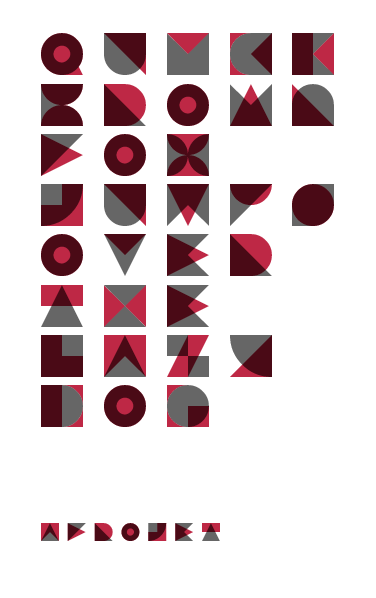
• A play on brickstacking, 'Brutal' is an experiment in creating a one brick fontstruction for multilayered screen printing. To use this font, you simply need to layer the uppercase alphabet on top of (or underneath) the lowercase alphabet (see below for a sample).
Obviously, it doesn't look like much in the Fontstruct preview.
The inspiration for this typeface came about when I was putting together this Flickr gallery of modular multi-colored lettering.
Simply awesome. I hope someday to see some stunning real-world applications made possible by this riddle of an elegant offering.
Too many beautiful glyphs to count. The U and the N and the R. The H and the X. The masterful compositions with just the right touch of brickstacking for certain layers (The Q, the G, the D, the B, the C, the K). A vs. V. L vs. J. M, W, and E! But especially the F. And, again, that magical Q!
I could go on, my friend, singing the praises of this masterpiece. The question becomes: How to properly display this as a featured download?
Amazing! I tried to make something like that, but failed. Actually, the solution was simply beatiful... or beautifully simple.
What especially blows my mind after taking a tour of the flikr gallery you put together: amongst all the similar constructions that inspired you, Brutal embodies the greatest legibility born of arguably the strictest ruleset. And with absolutely no dearth of playful style.
You say 'Brutal' is an experiment ... well, the experiment was a fantastic success.
As someone who was involved in screenprinting (way back in the 60s) I can really appreciate this design (and the others in your gallery) .... hmmmm, I can almost smell the tri-chromatic inks.
Words fail me.
Thanks for the great responses everyone. I definitely want to pull some prints of this one. The digital sample doesn't do it the justice it deserves. The red is a bit too pink. I'd like it to be much more of a tomato soup red. Wondering now if either the M, the E, or the W shouldn't be reversed to make one of them more unique.
A well coordinated mixed-case setting enables palette swapping for any of these layered glyphs, right?
I get your point (if one had to change, I would pick M). But I really dig the conceptual elegance of rotated and repeated forms. It’s the rhythm that helps showcase those showstoppers (Q, O, X, Z – yeah, and especially that F again). But is it punk or is it polka, music or muzak, acid jazz or bad acid? I know what my ears say, but yours must ultimately decide.
Actually, though, I have always been unreasonable fond of the pacman-style Art Deco M. In that case, mirrored chucky trapezoids might do the trick. This just brings up the idea of using the diacritics for alternates (Å+å = YAY!). But, then again, why bloat something already so willfully, brutally paired down to its most fundamental elements?
uuhnn blkrr flbpppft... (stupefaction)
@will.i.ૐ You're totally right. Seems I was lost within the potentials of my own font. No need for alt glyphs; if you want to flip one of the glyphs just swap lowercase for uppercase (or vis a versa). In this example, the dominant red color is swapped to the uppercase. Punk becomes polka (and Jello Biafra records an instrumental accordion record).
And just for shits and giggles and because web fonts are the talk du jour...here's an example of 'Brutal' - layered and presented on the web (requires a modern browser with @font-face support).
Holy crap. Now that’s totally awesome. Loving the new color schemes. Does this make me a polka man? ;)
Okay. I love the design. And that @font-face demo is incredible.
Great work afro...love the @font-face demo.
It' a little hard to read but i can see how you made the letters. Pretty good!
try using this font. looks better without overlapping two letters
wow. "brutal exchange of a smug for some faith"? lol. afrojet, you're so funny XD